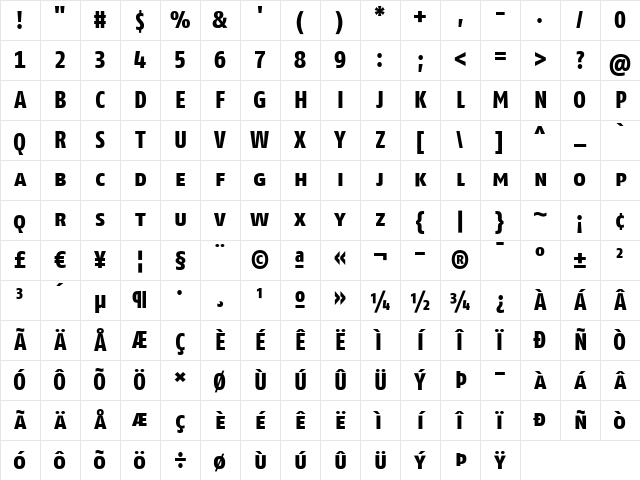
FagoCoTf Extrabold Free Font
FagoCoTf Extrabold
Style: Extrabold
Foundry: Ole Schaefer, . Published by FontShop International for FontFont Release Fago Condensed is a trademark of FSI Fonts und Software GmbH
Design Context for FagoCoTf
FagoCoTf is a composed and adaptable typeface that performs quietly and consistently across a wide range of design contexts. Its bold stroke weight gives it real presence on the page.
Who designed the FagoCoTf Extrabold font?
This font was published by Ole Schaefer, . Published by FontShop International for FontFont Release Fago Condensed is a trademark of FSI Fonts und Software GmbH. Check the technical specs section for copyright and designer details.